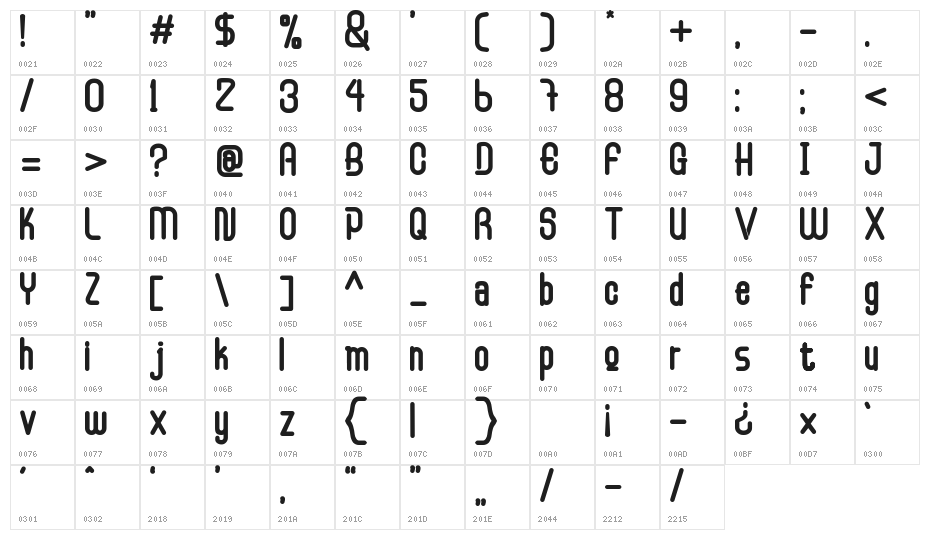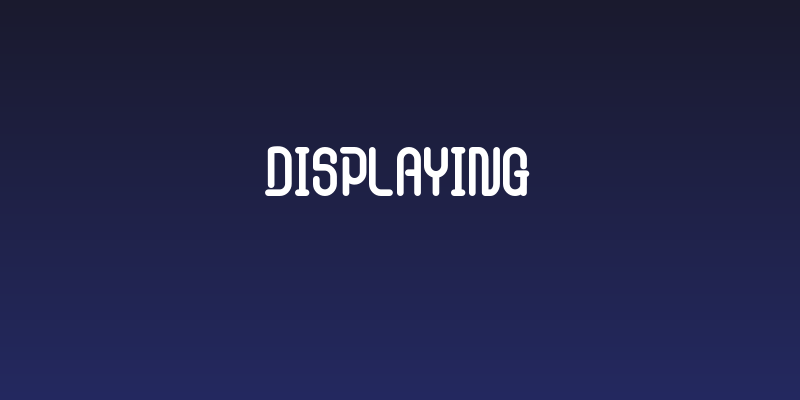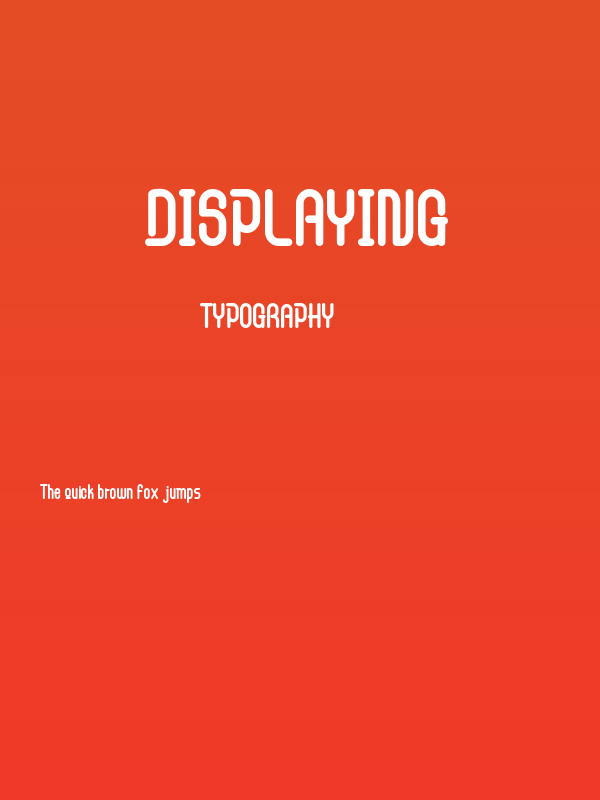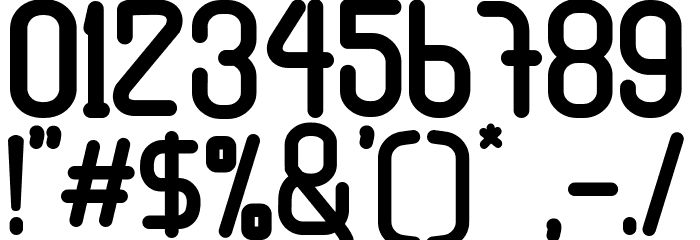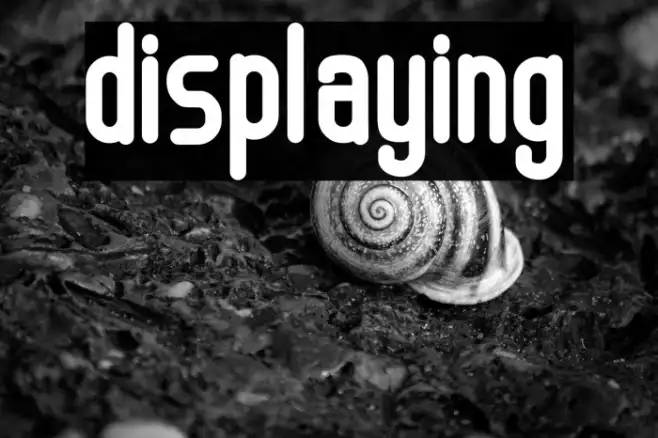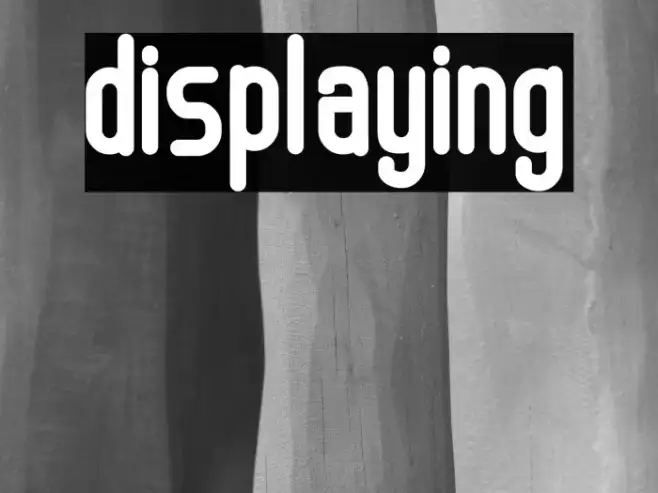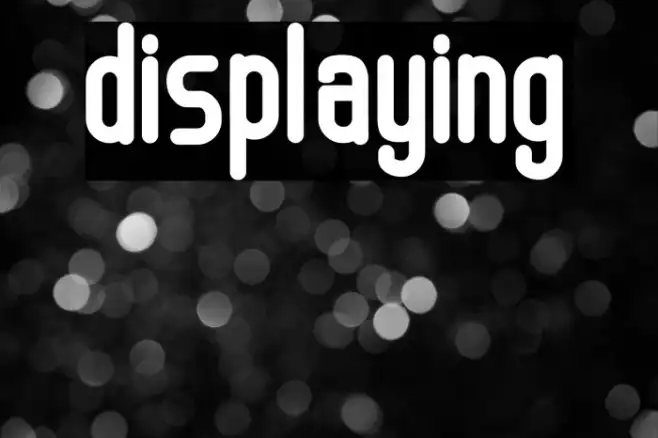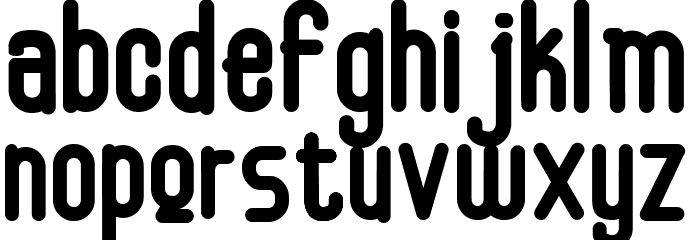
displaying Font
displaying Description
This font features a bold, rounded style with uniform stroke widths, giving it a modern and approachable appearance. The characters are well-spaced, enhancing readability while maintaining a playful and friendly vibe. The rounded edges and consistent thickness make it suitable for a variety of design applications. The numerals and special characters are designed to match the overall aesthetic, ensuring a cohesive look across all text elements. This font's simplicity and clarity make it versatile for both digital and print media.
| Proposed Projects | Ideal for branding, packaging, children's books, and digital interfaces where a friendly and modern look is desired. |